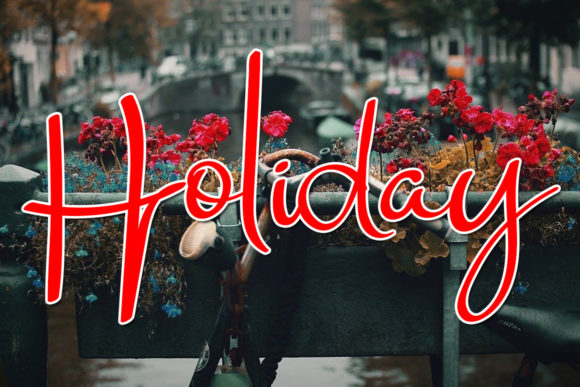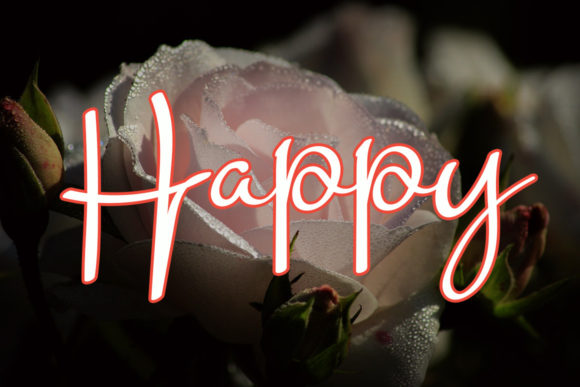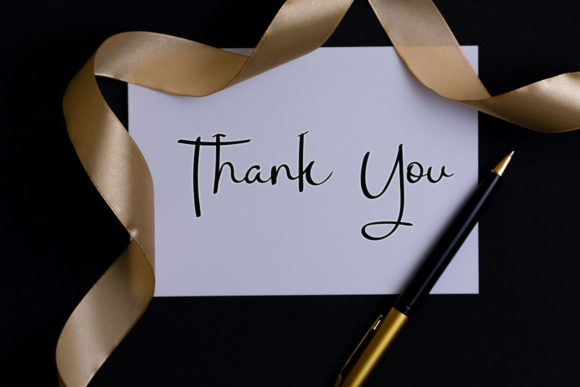
Introduction to Pretty Girls Font
Remember that moment when you’re working on a creative project, and you just can’t seem to find the right font to bring your design to life? The perfect combination of elegance and playfulness can make all the difference. That’s where the Pretty Girls Font comes in – a beautiful and sweet handwritten font that’s sure to add a touch of joy to your designs.
As a designer, you understand the importance of having high-quality design resources at your fingertips. The Pretty Girls Font is a valuable addition to any design arsenal, offering a fresh and clean aesthetic that’s perfect for a wide range of creative projects. With its transparent background and elegant feel, this font is sure to elevate your designs and make them stand out from the crowd.
- Unique, cursive script design perfect for adding a touch of elegance to any project
- Perfect for use in graphic design, digital art, and other creative projects where a high-quality, stylish font is required
Honest Review: Pretty Girls Font
As a designer, I’m always on the lookout for high-quality design resources to enhance my creative projects. Recently, I came across the Pretty Girls Font, and I was excited to give it a try. Here’s my honest review.
- ✨ High-quality vector design: The font is crisp and clean, making it perfect for digital projects.
- ✨ Versatile: The Pretty Girls Font comes in a range of styles and weights, allowing for a lot of creative freedom.
- ⚠️ Limited customization options: While the font is high-quality, it’s not customizable, which might be a drawback for some designers.
- ⚠️ No transparent background option: The font doesn’t come with a transparent background option, which might make it difficult to use in certain design scenarios.
Overall, I think the Pretty Girls Font is a great addition to any designer’s toolkit. It’s a high-quality, versatile font that’s perfect for a range of creative projects. While it has a few limitations, it’s definitely worth checking out if you’re looking for a free design resource.
Tips for Getting the Most Out of Pretty Girls Font
To get the most out of the Pretty Girls Font, experiment with different font sizes, colors, and styles to create unique and eye-catching designs. You can also use the font’s transparent background to create complex designs with multiple layers.
The Pretty Girls Font is ideal for a variety of creative projects, including social media graphics, blog posts, and marketing materials. Its high-quality design and transparent background make it perfect for creating visually appealing and professional-looking designs.